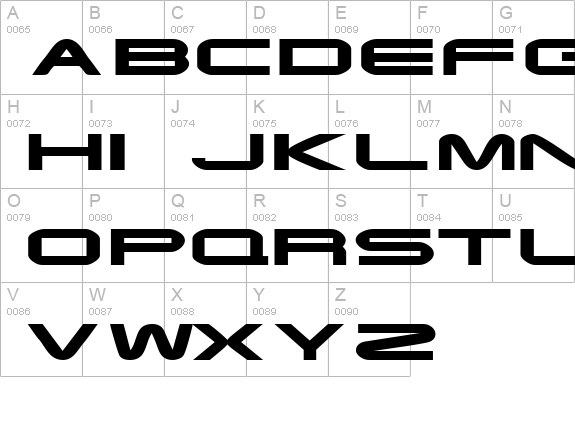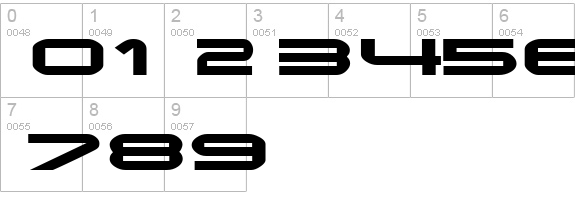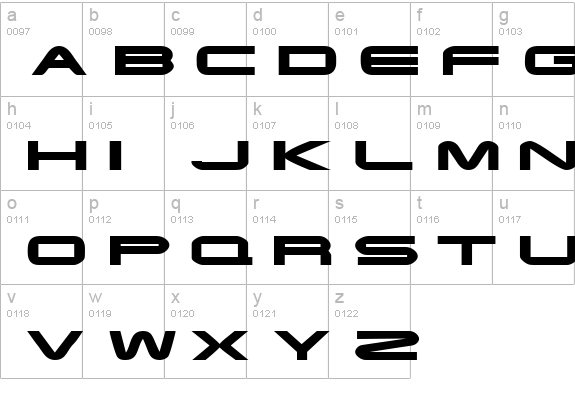
EndzoneExtended Font Details
EndzoneExtended font is a modern and stylish typeface that exudes a sense of sophistication and elegance. With its sleek lines and unique design elements, this font is perfect for creating eye-catching titles, headlines, and branding materials. The extended version of Endzone adds a touch of boldness and character to any project. What's even better is that EndzoneExtended font is available for free download at FontsMarket.com. Now you can elevate your designs with this premium font without breaking the bank. Whether you're working on a logo, poster, website, or any other creative project, EndzoneExtended font is sure to make a lasting impression. Download it today and unleash your creativity!